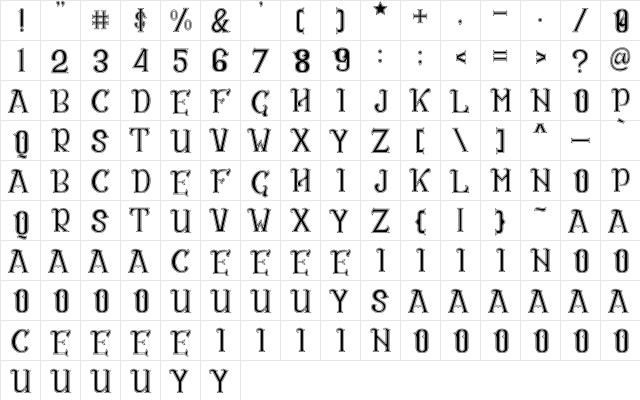
CS Rosalia Dropline Regular
| Designer | Craft Supply Co. |
Design Context for CS Rosalia Dropline Typeface
CS Rosalia Dropline takes a measured approach to typography — its balanced proportions and neutral character make it a reliable workhorse for both digital and print work.